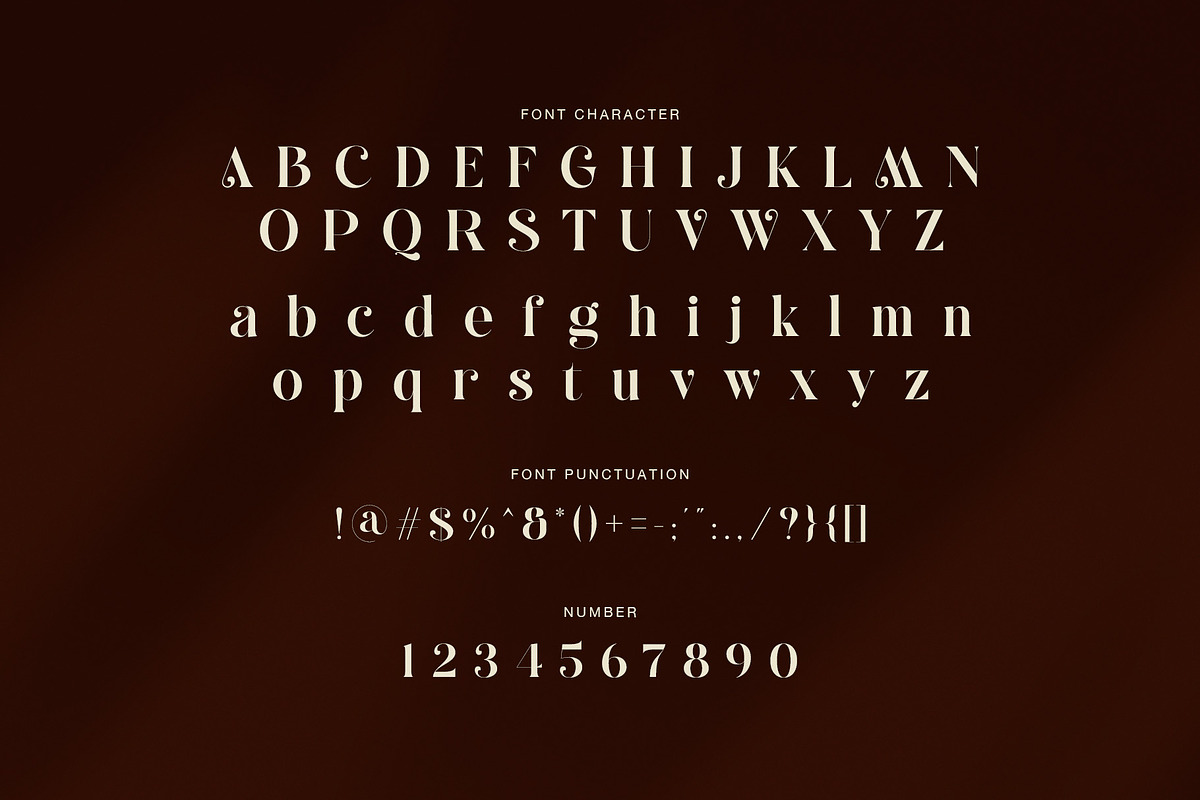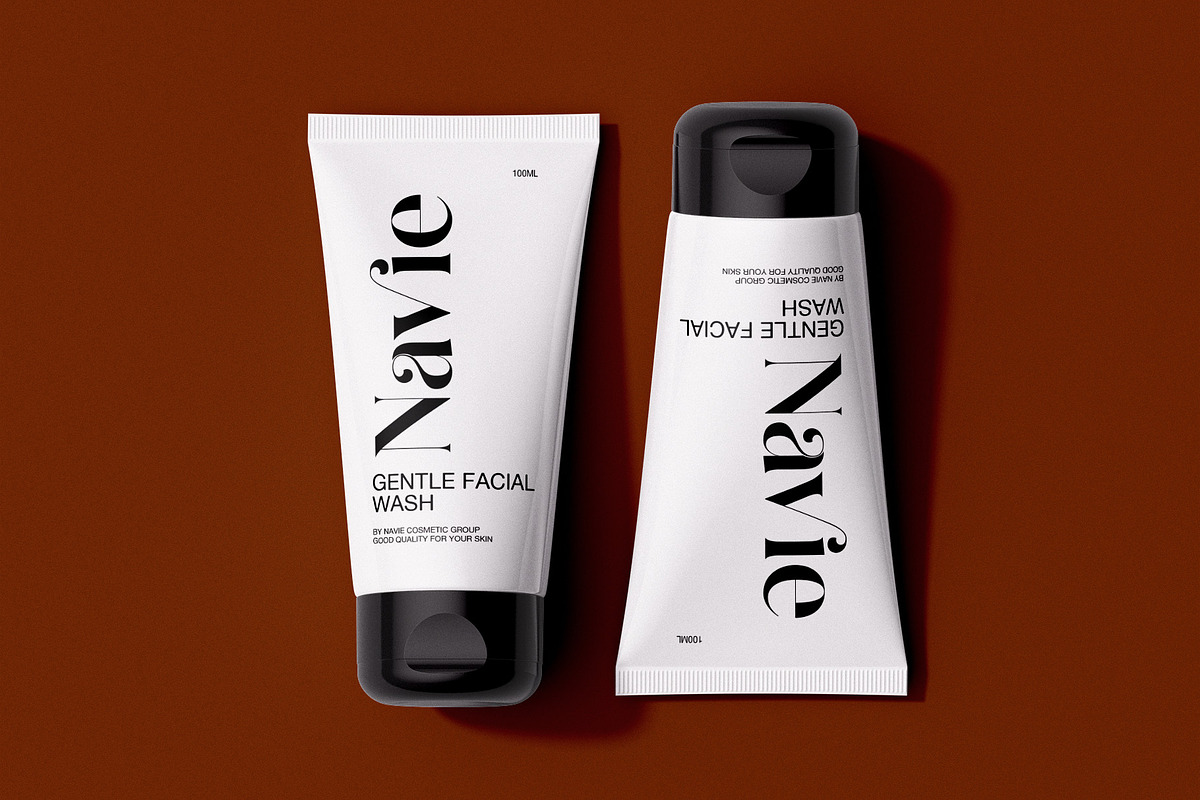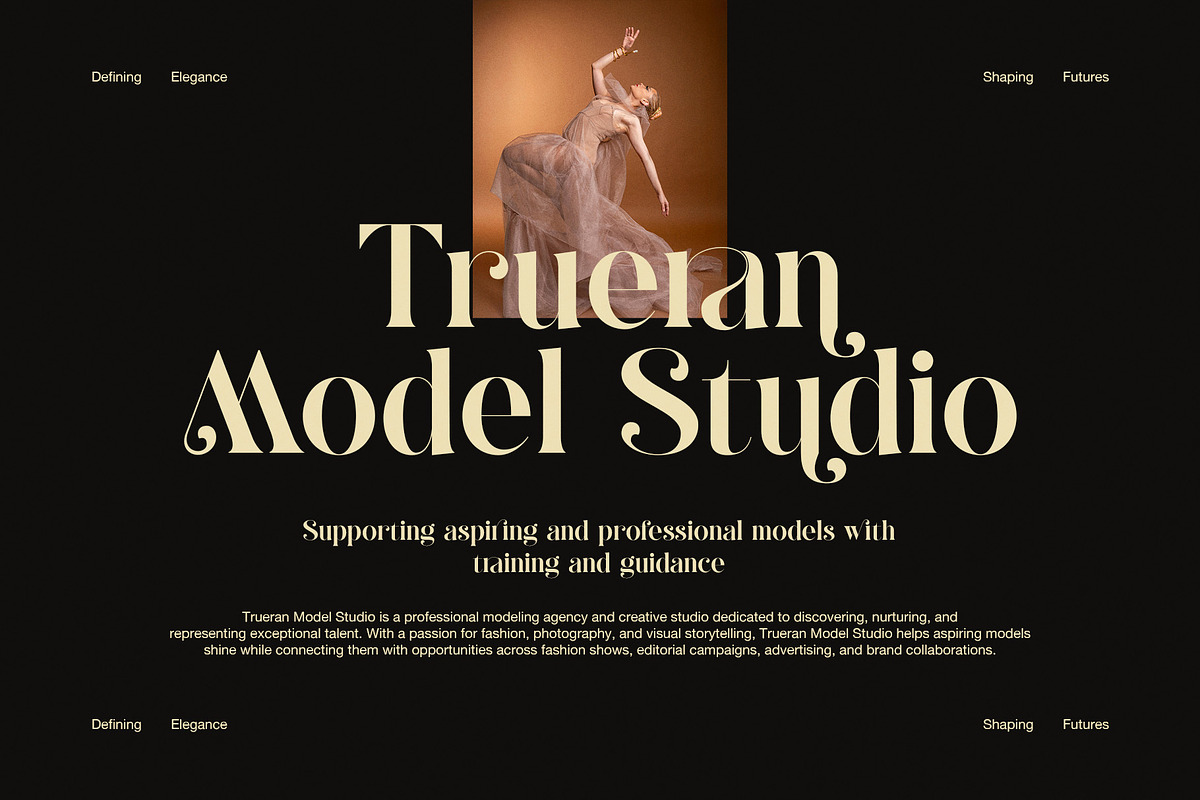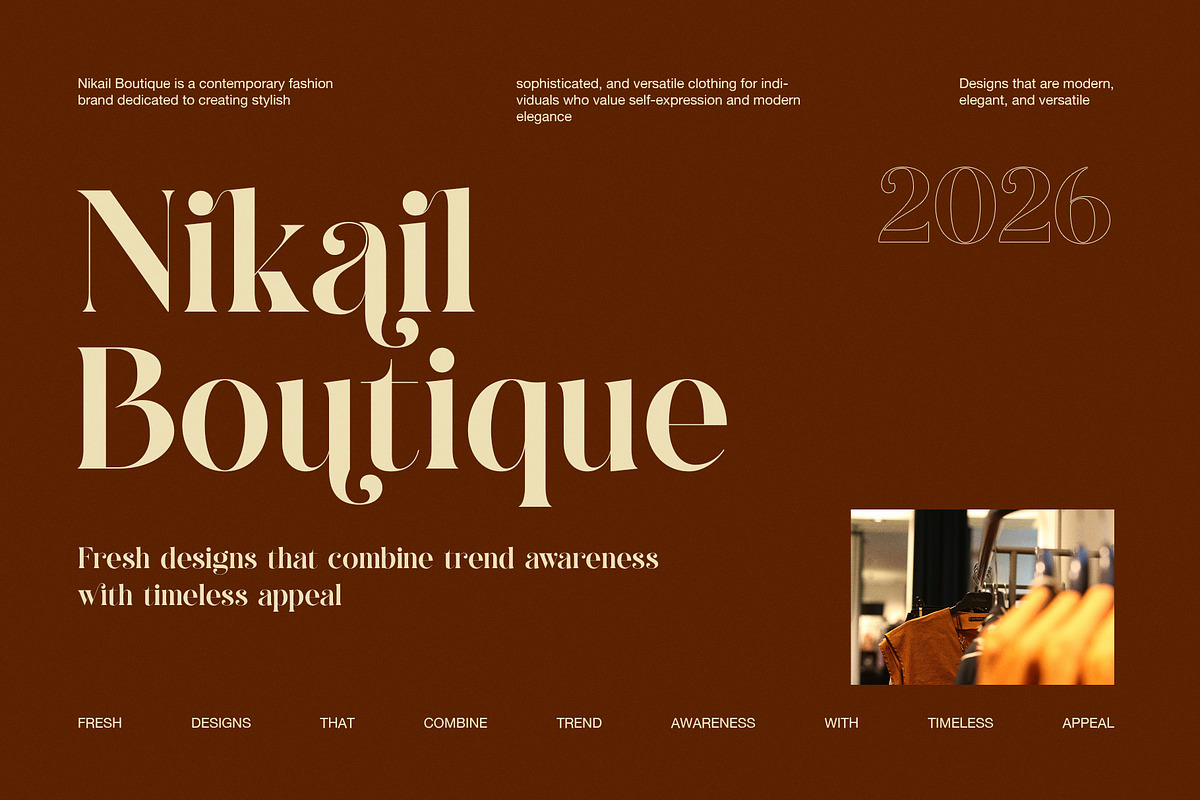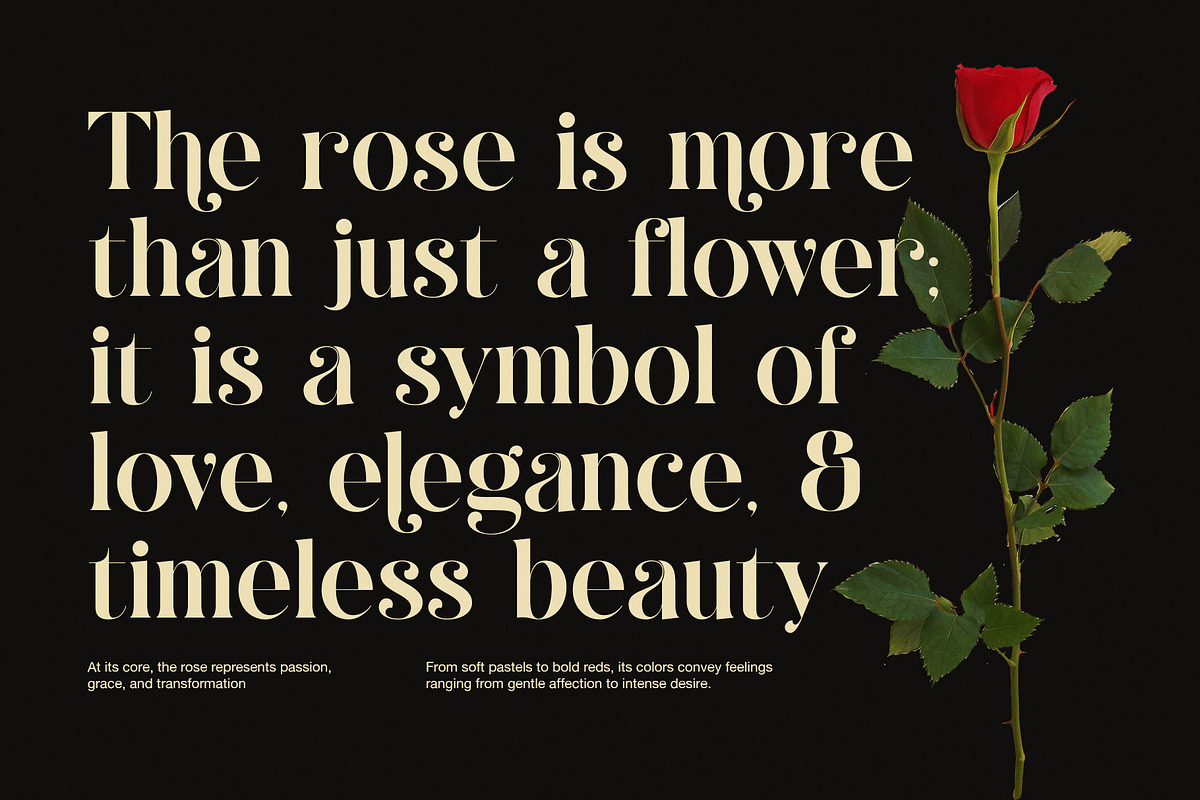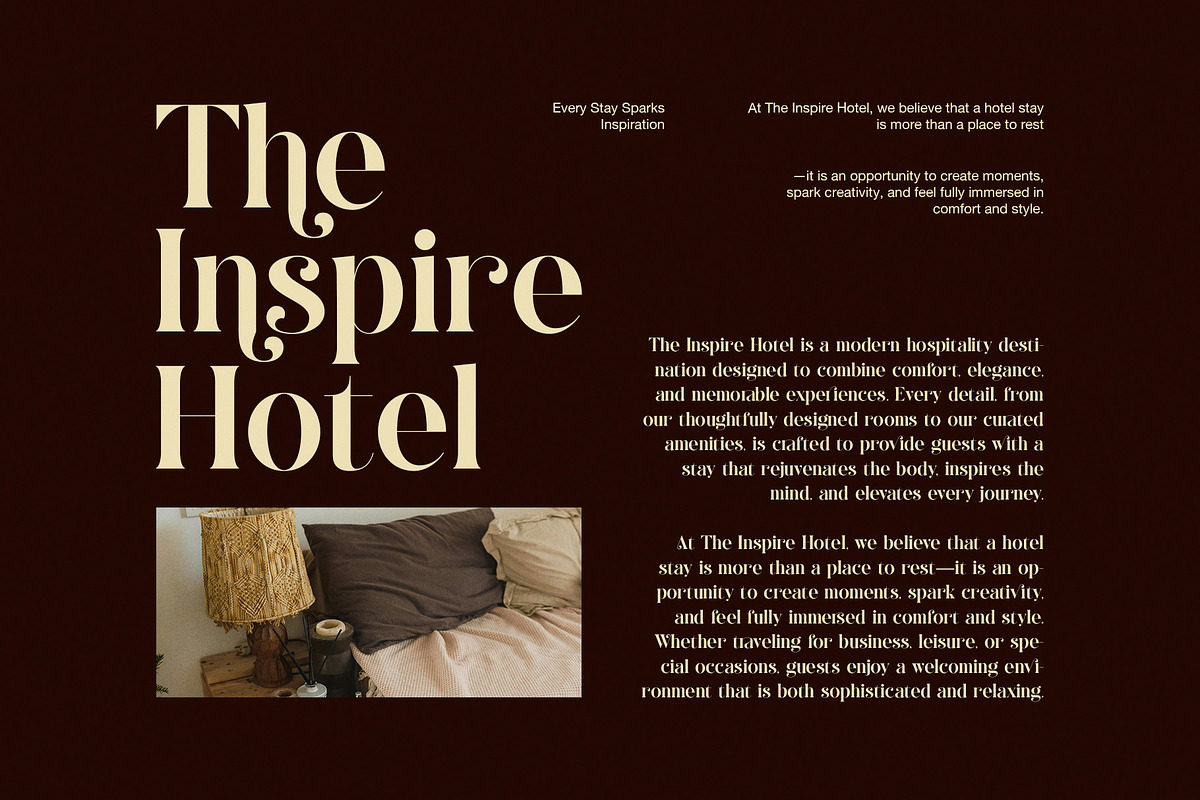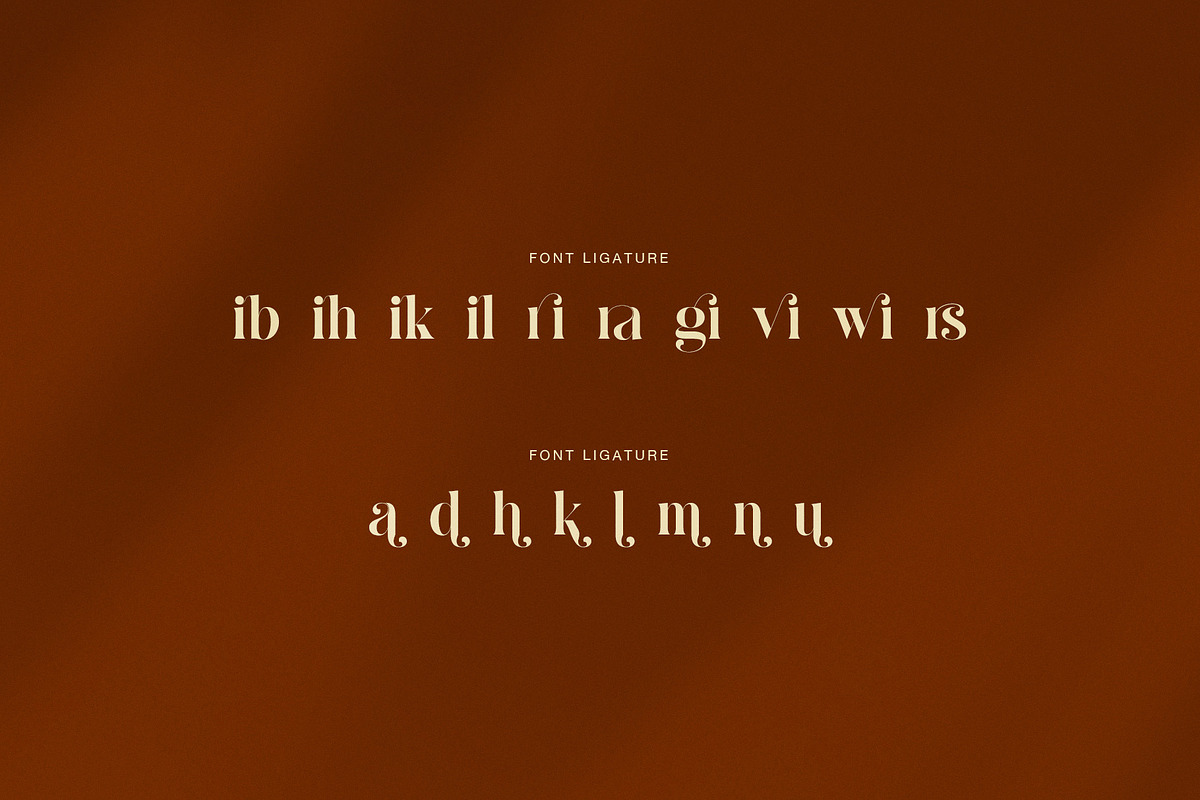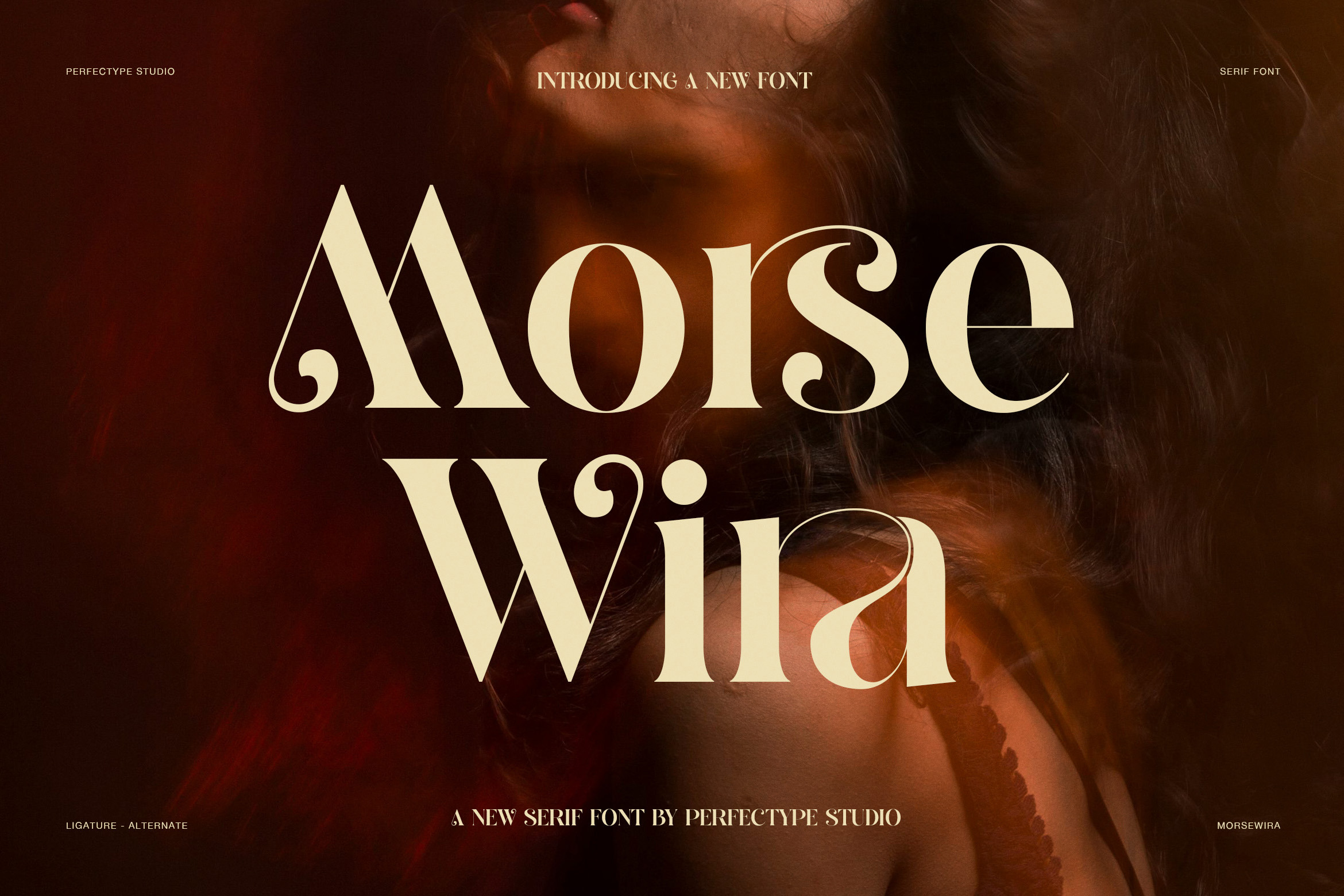
Morsewira Elegant Serif Font
Morsewira Elegant Serif Font is a striking display serif that blends luxury, romance, and modern elegance in one refined style. Its letterforms feel bold at first sight, yet the fine curves and soft details give it a graceful and artistic soul. Because of that balance, this font looks both strong and beautiful. It speaks with confidence, while still feeling warm, stylish, and full of charm.
The shape of Morsewira is rich and expressive. Several characters carry soft curls, stylish terminals, and flowing ligature details that make the font look custom and memorable. In addition, the contrast between thick and thin strokes gives each word a polished and premium look. The uppercase letters feel grand and classic, while the lowercase forms add movement and personality. As a result, the font works very well for designs that need elegance with a unique visual voice.
From the previews, Morsewira shines in fashion branding, beauty packaging, boutique logos, hotel identity, model agency layouts, and editorial titles. It also looks beautiful in cosmetic labels, social media posts, brand presentations, invitation cards, and luxury product packaging. Moreover, the ligatures help create a smoother flow, so short names and headlines feel more refined and more exclusive.
This font is especially suitable for designers who want a serif font with a feminine yet powerful mood. Although it has a decorative side, it still remains neat and readable in display use. Therefore, it is a strong choice for branding projects that need a stylish, elegant, and timeless impression.
Main Features
- Elegant serif style with a luxury display look
- Beautiful ligatures for smooth and stylish word shapes
- Strong contrast with graceful curves
- Unique alternate characters for a custom feel
- Ideal for logos, branding, packaging, and editorials
- Perfect for fashion, beauty, hotel, and boutique themes
Why Choose Morsewira
Morsewira gives designs a premium and artistic tone without feeling too heavy. Furthermore, it helps brand names stand out in a graceful way. Whether you are building a fashion label, a beauty line, or an upscale hotel identity, this font adds character, elegance, and visual value.
If you need a serif font that feels classy, romantic, and memorable, Morsewira Elegant Serif Font is a beautiful choice. It can turn simple text into a rich visual statement. So, your branding can feel more polished, more expressive, and easier to remember.